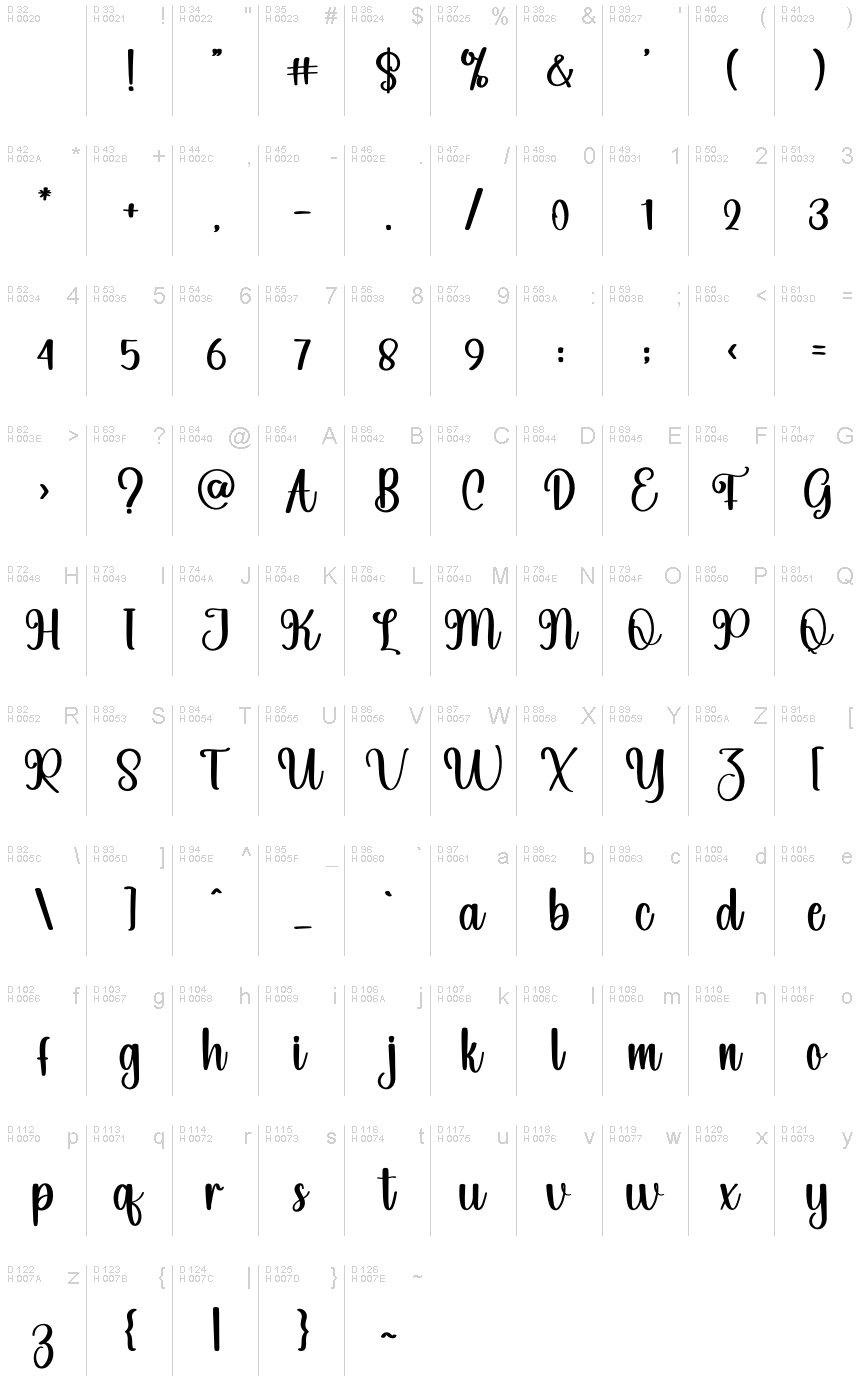
Sandwich
Sandwich, a creation by Inermedia Studio, brings the charm of handwritten artistry to digital design. Its semi-condensed width offers a cozy, personal touch that makes text feel intimate yet legible. The aesthetic appeal of Sandwich lies in its organic flow and casual elegance, capturing the essence of handcrafted work with every stroke.
The font's style is effortlessly versatile, making it an excellent choice for a variety of creative projects. Whether it's branding, invitation cards, product packaging or editorial designs—Sandwich adds a touch of warmth and character that resonates with audiences seeking authenticity. Its handwritten nature also ensures that designs infused with this font stand out with a bespoke quality that machine-made typefaces simply cannot replicate.
Embrace the distinctive personality and stylish flair of Sandwich to elevate your creative endeavors with an approachable and engaging script.